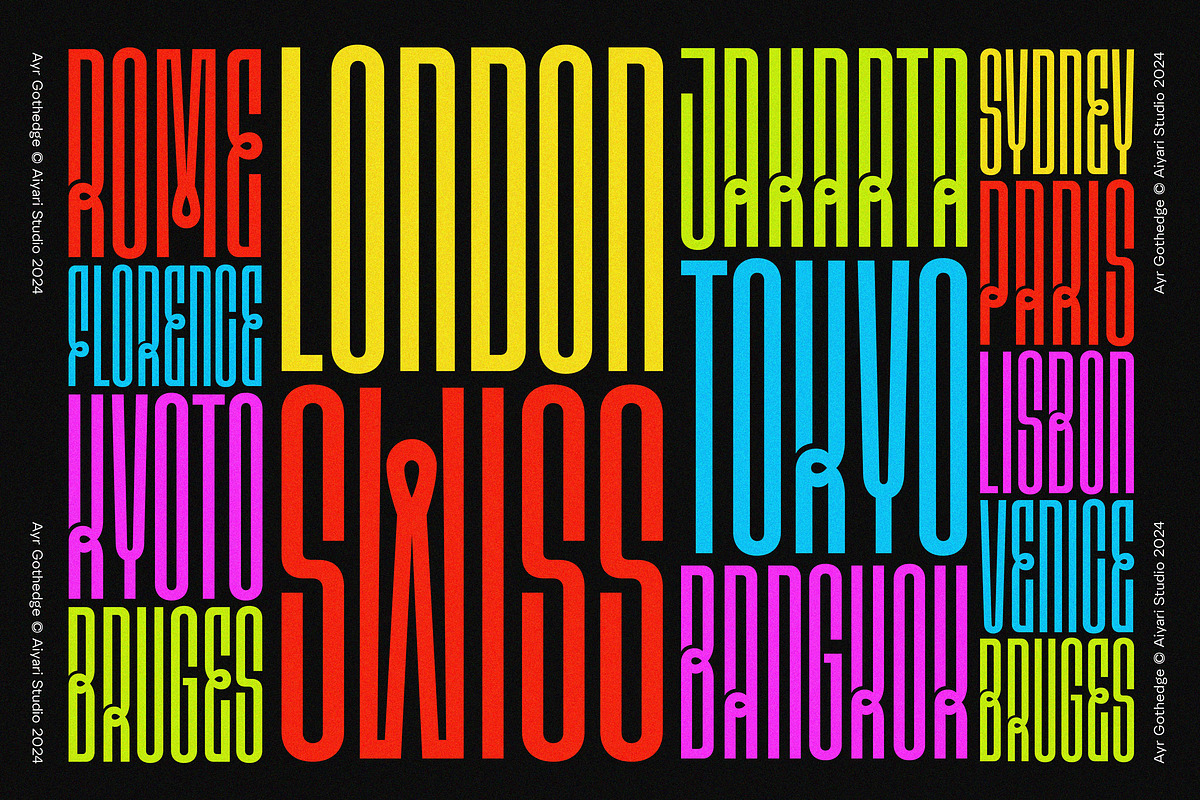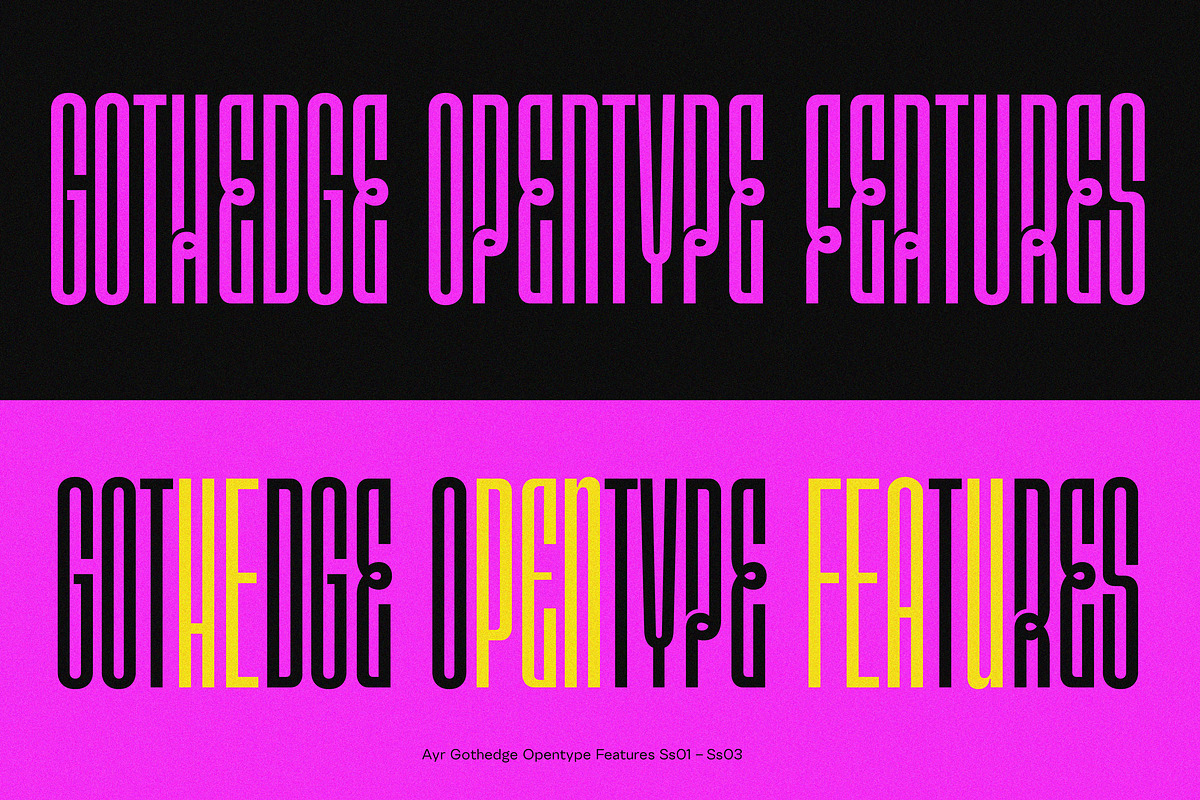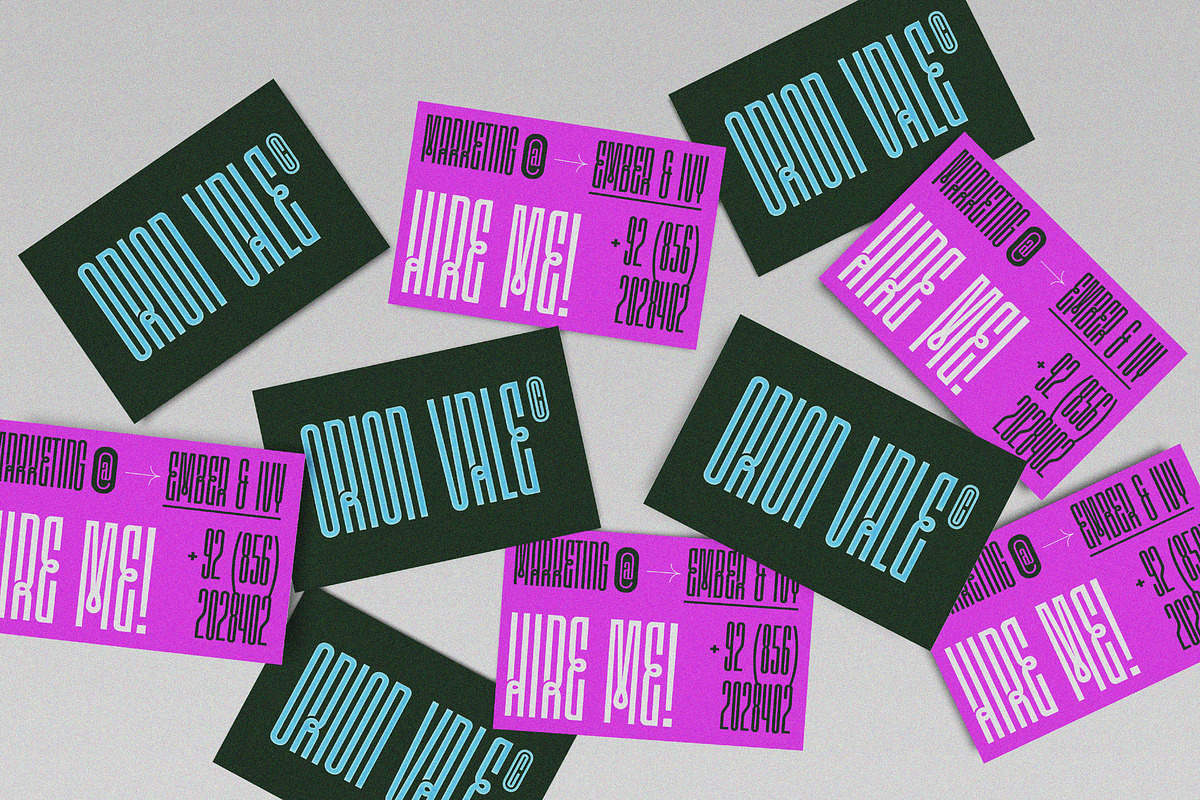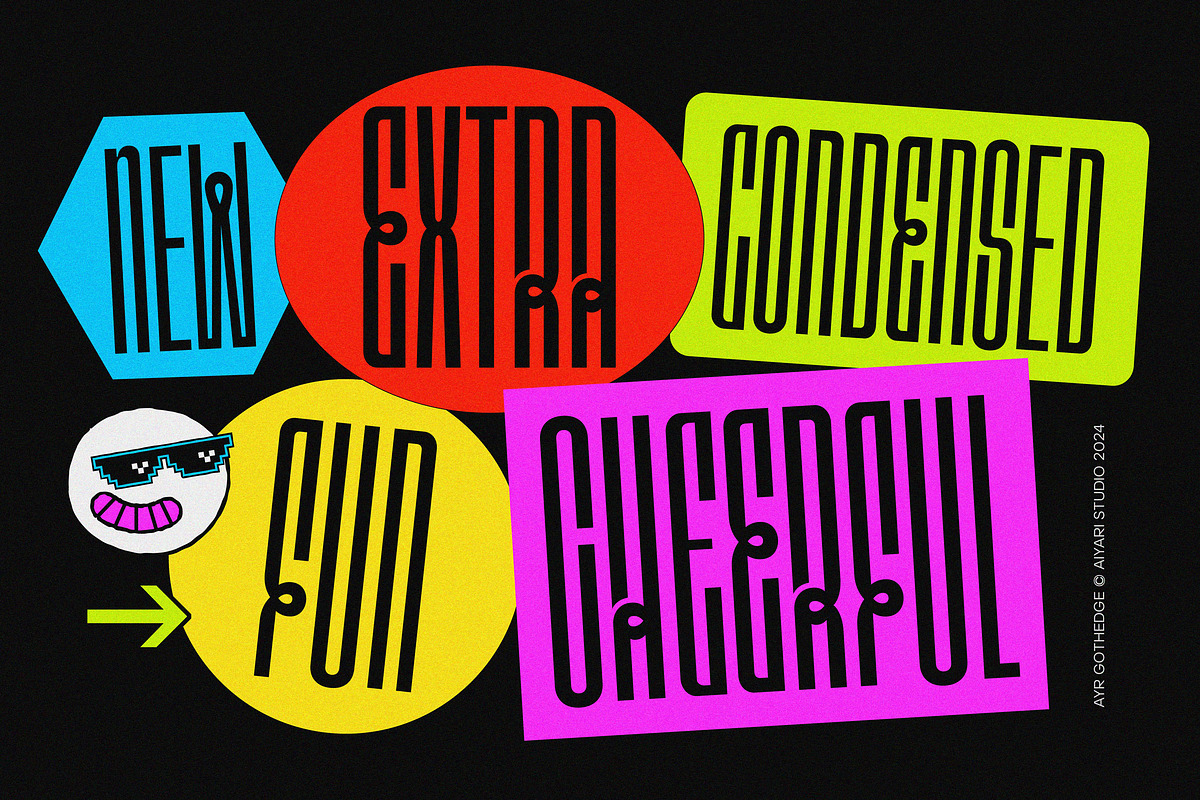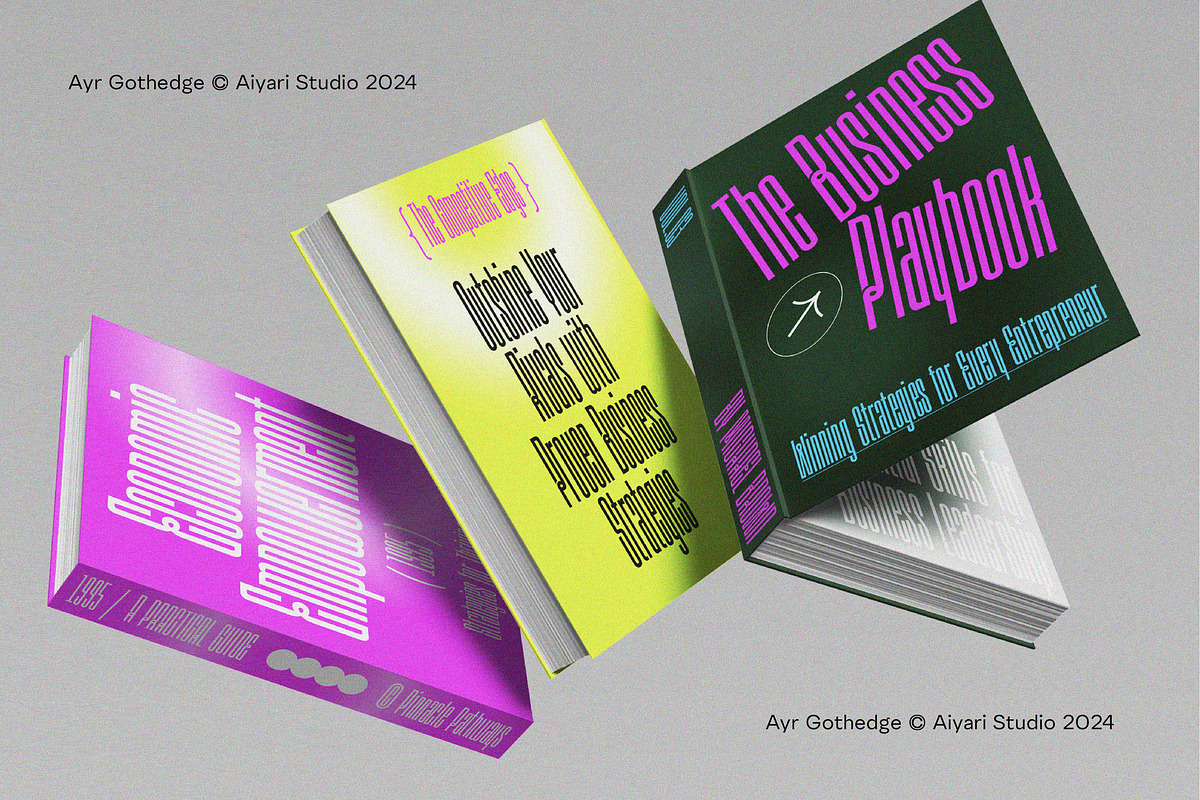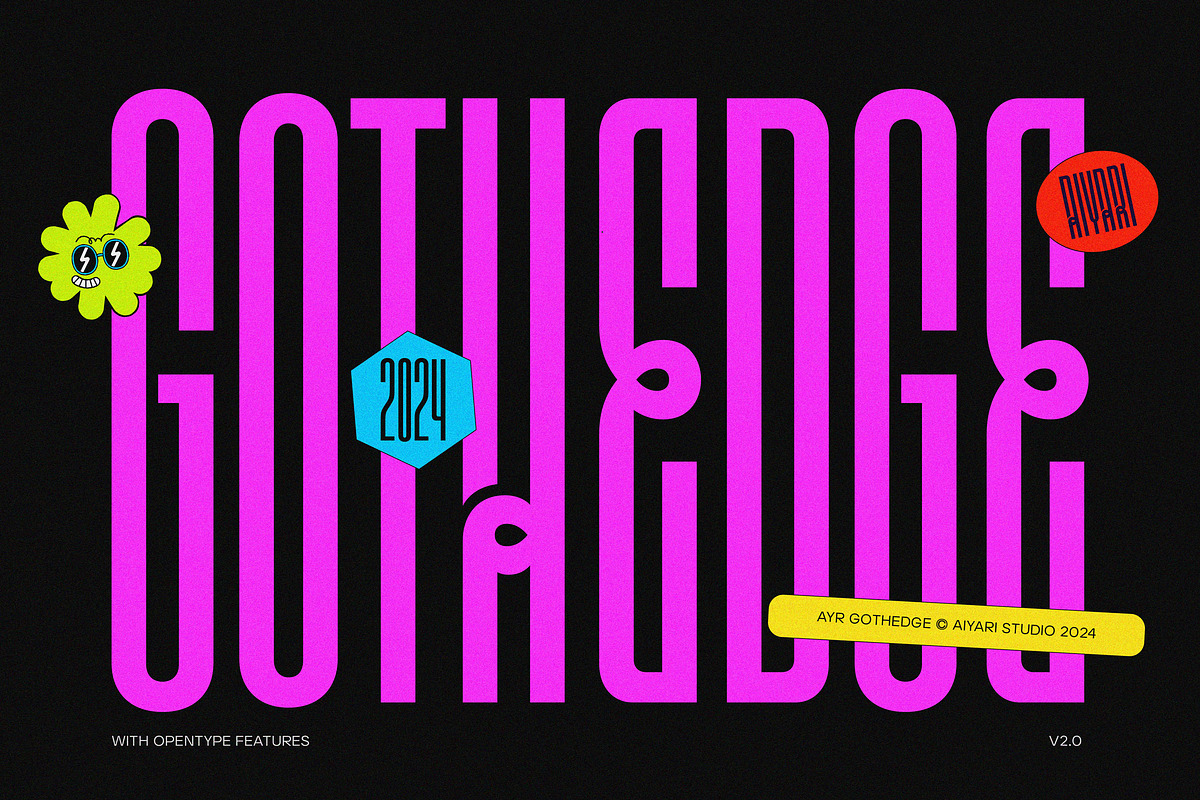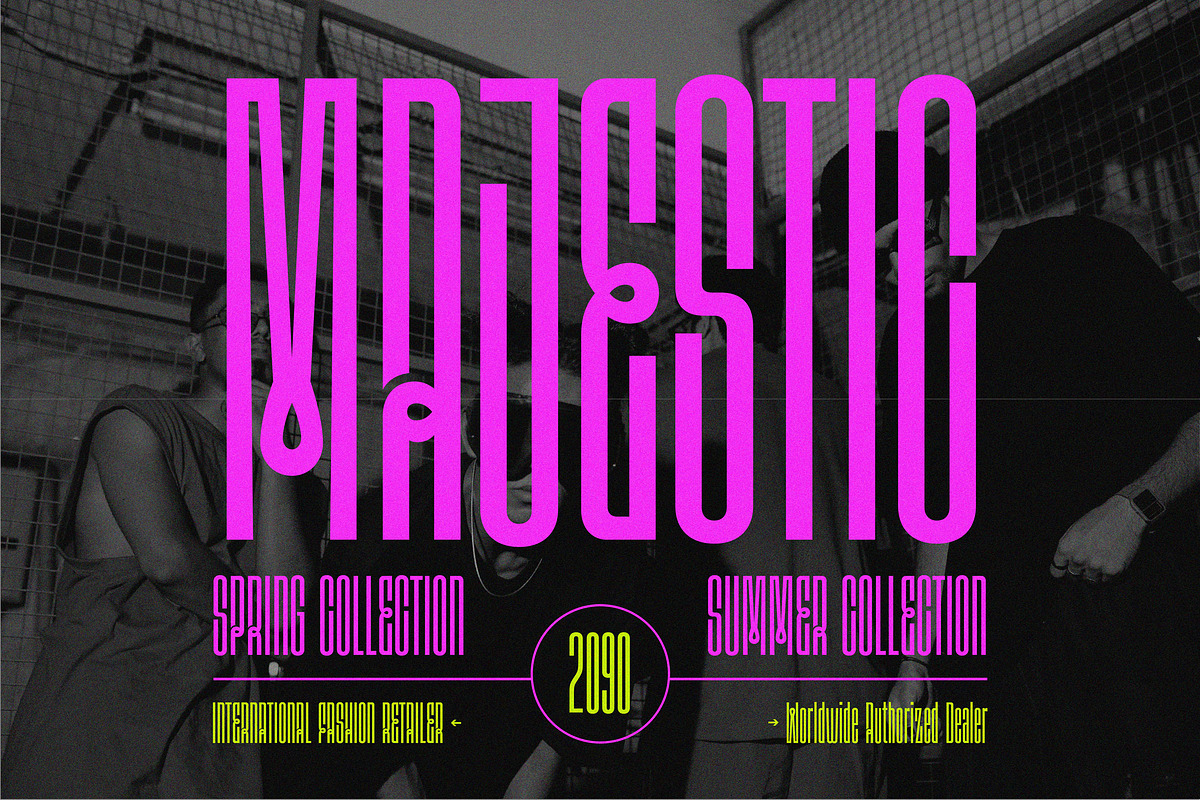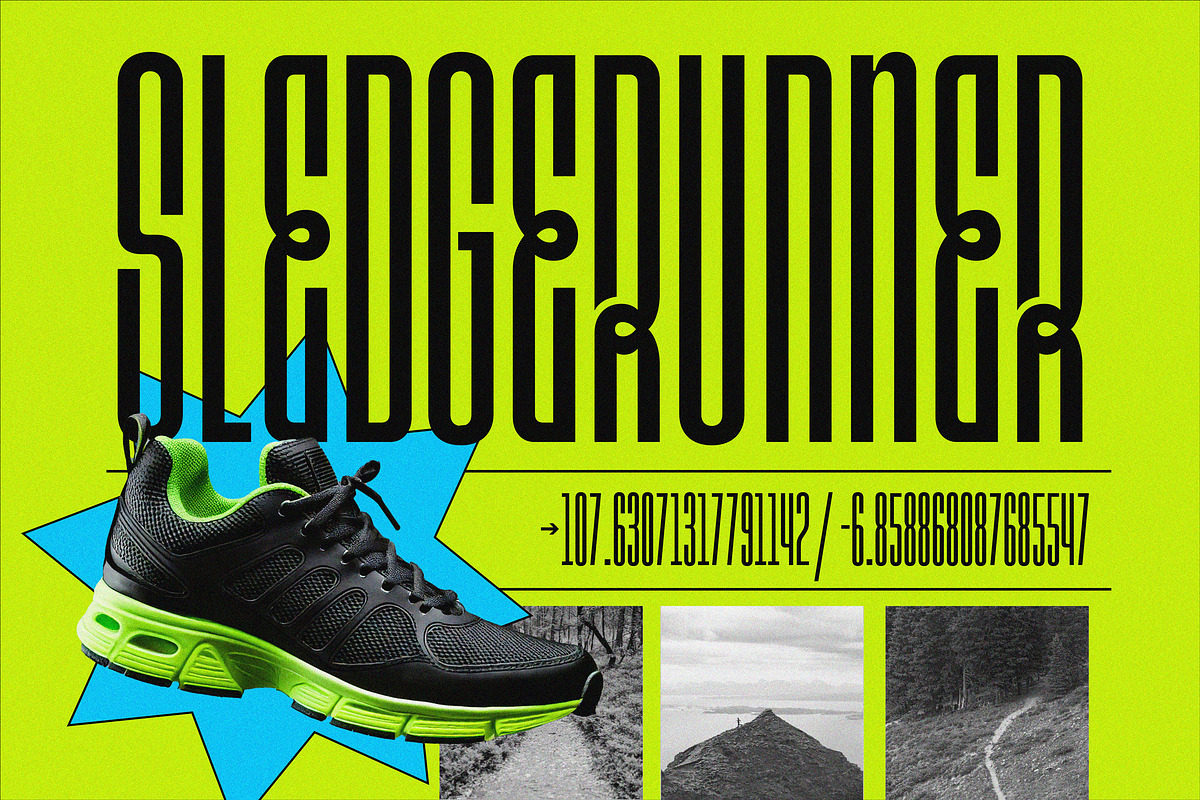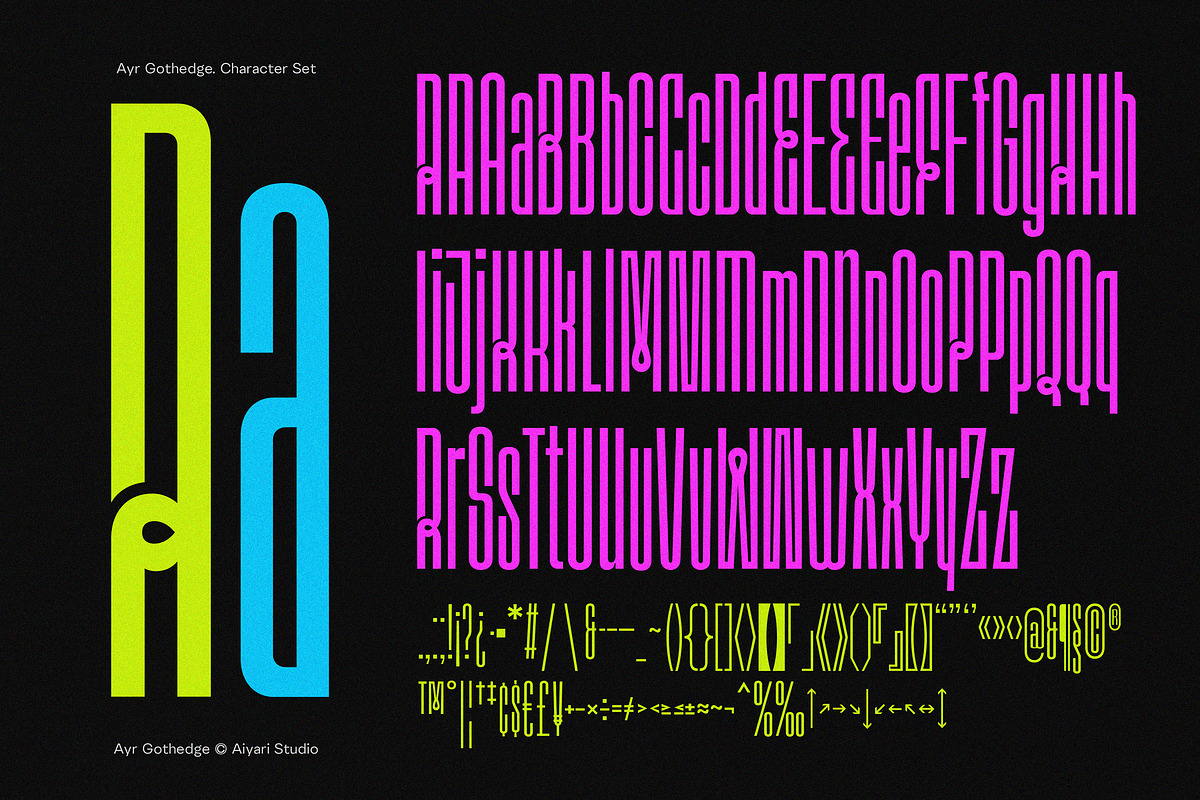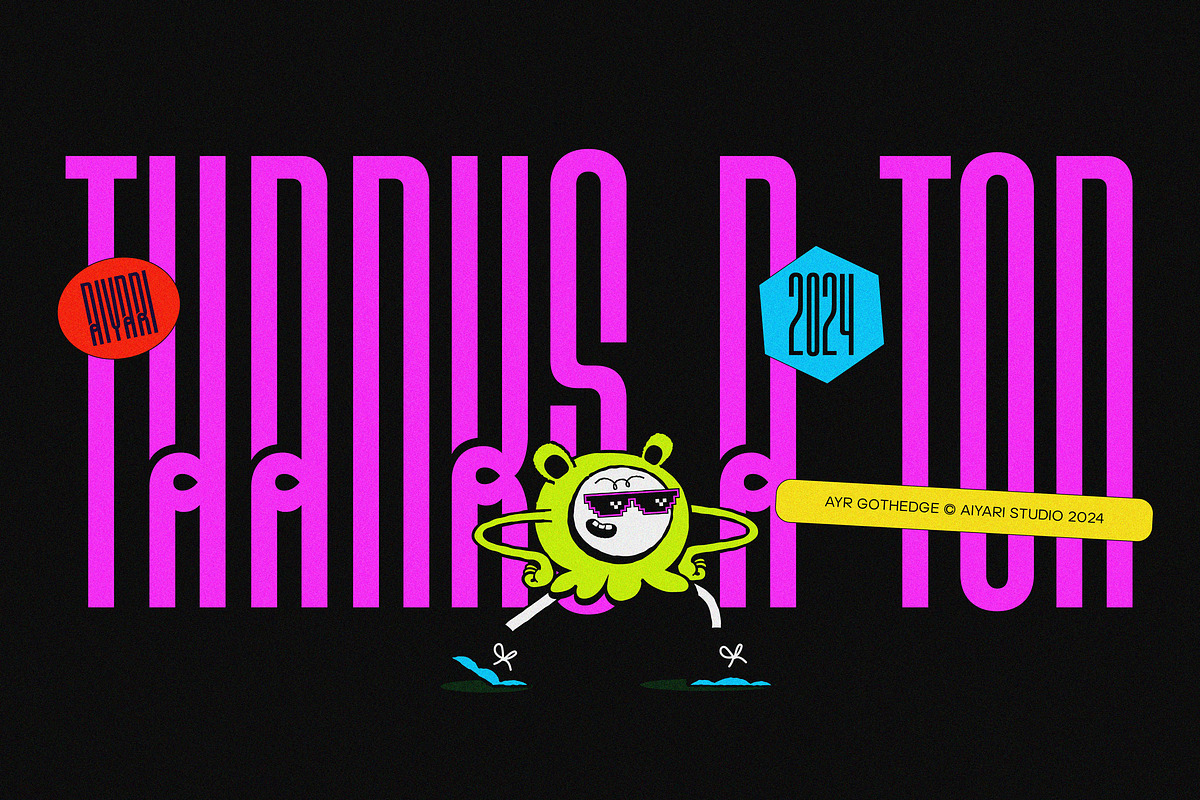
Gothedge
Introducing Gothedge, a striking typeface that seamlessly blends the elegance of clean, streamlined letterforms with the playful and experimental spirit of the Art Nouveau era. Its ultra-condensed, tall letterforms feature unique curving details, making Gothedge is the ideal choice for those seeking a balance between refined elegance and avant-garde creativity.
Gothedge excels in various applications, including headings, invitations, logos, quotes, apparel design, flyers, posters, greeting cards, product packaging, book covers, album covers, and movie titles.